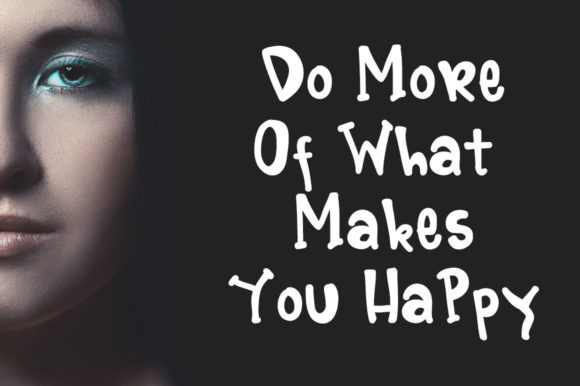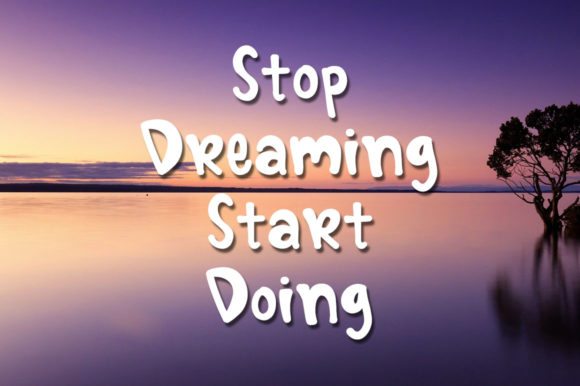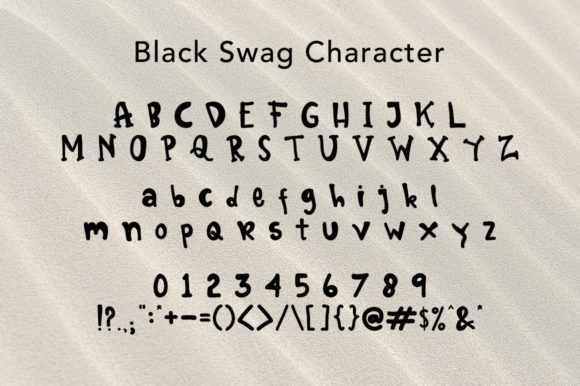
Unleash Your Creativity with Black Swag Font: The Ultimate Display Font for Designers and Crafters
Are you a designer, crafter, or DIY enthusiast looking for a font that can elevate your creative projects? Look no further than Black Swag Font, a cute and casual display font that’s perfect for a wide range of applications. In this article, we’ll explore the features and benefits of Black Swag Font, and show you how it can turn your creative ideas into stunning works of art.
What is Black Swag Font?
Black Swag Font is a unique and stylish display font that’s designed to make a statement. With its bold and playful design, this font is perfect for creating eye-catching headlines, titles, and captions for a variety of projects. Whether you’re working on a graphic design project, crafting a handmade card, or creating social media content, Black Swag Font is the perfect choice.
Key Features of Black Swag Font
- Cute and Casual Design: Black Swag Font features a cute and casual design that’s perfect for creating friendly and approachable content.
- Bold and Playful: With its bold and playful design, Black Swag Font is sure to grab attention and make your content stand out.
- Versatile: Black Swag Font can be used for a wide range of projects, from graphic design and crafting to social media and DIY projects.
- Easy to Read: Despite its bold design, Black Swag Font is easy to read and understand, making it perfect for creating content that’s both stylish and legible.
Black Swag Font is perfect for designers and crafters who want to add a personal touch to their projects. With its unique and stylish design, this font can be used to create a wide range of projects, including:
- Social Media Graphics: Use Black Swag Font to create eye-catching social media graphics that will help you stand out from the crowd.
- Handmade Cards and Invitations: Add a personal touch to your handmade cards and invitations with Black Swag Font.
- DIY Projects: Use Black Swag Font to create stunning DIY projects, such as signs, banners, and posters.
- Graphic Design Projects: Black Swag Font is perfect for graphic design projects, such as brochures, flyers, and posters.
Why Choose Black Swag Font?
So why choose Black Swag Font for your next project? Here are just a few reasons:
- Unique Design: Black Swag Font features a unique and stylish design that will help your content stand out.
- Versatile: Black Swag Font can be used for a wide range of projects, making it a great addition to your font library.
- High-Quality: Black Swag Font is a high-quality font that’s designed to produce stunning results.
In conclusion, Black Swag Font is a cute and casual display font that’s perfect for designers, crafters, and DIY enthusiasts. With its bold and playful design, this font can be used to create stunning content that’s sure to grab attention. Whether you’re working on a graphic design project, crafting a handmade card, or creating social media content, Black Swag Font is the perfect choice. So why wait? Download Black Swag Font today and unleash your creativity!